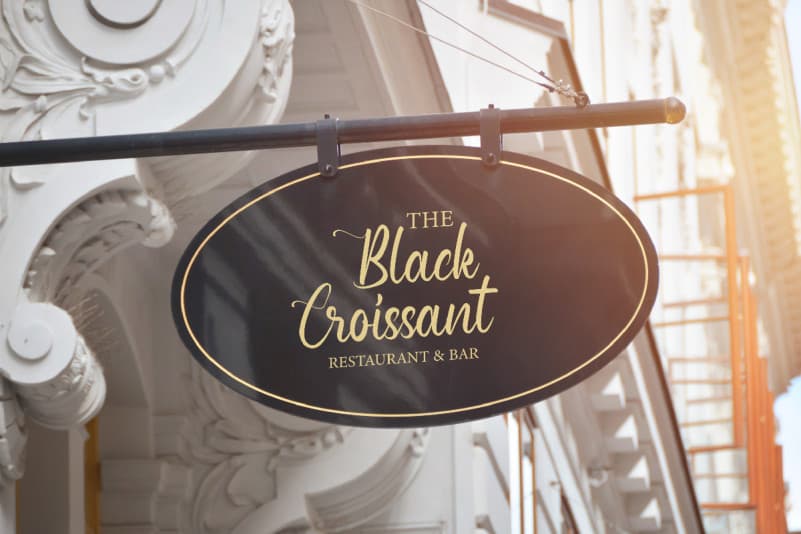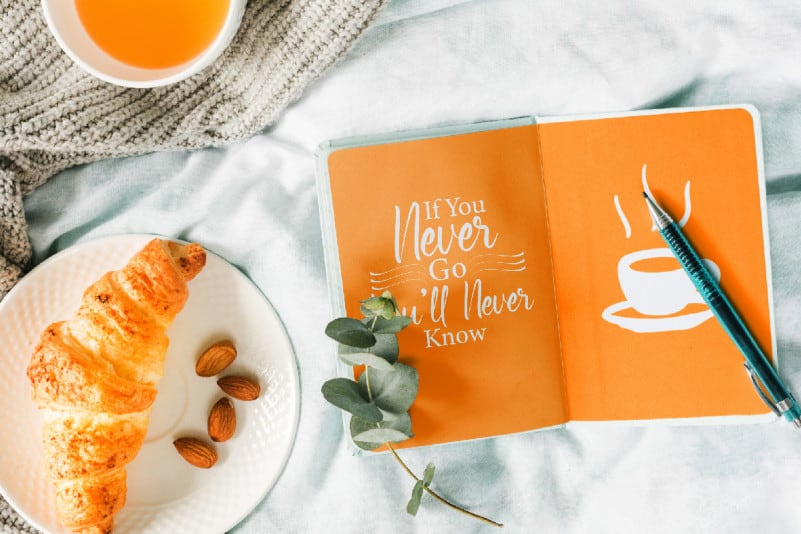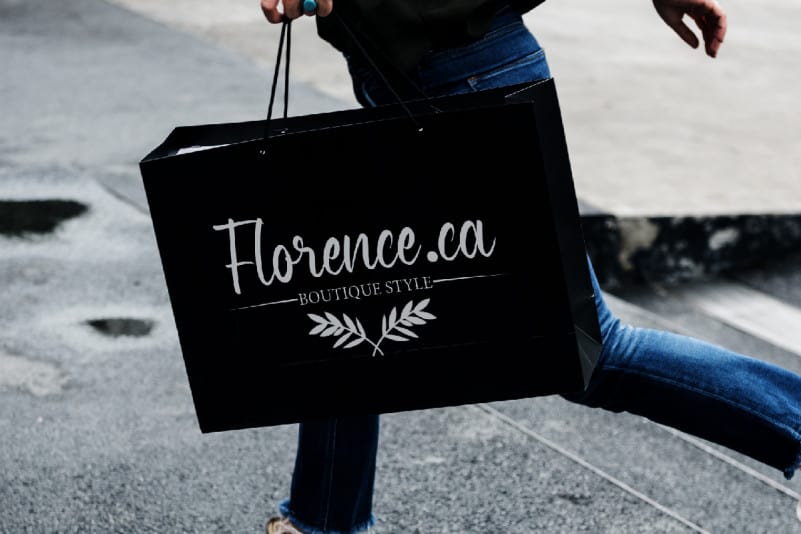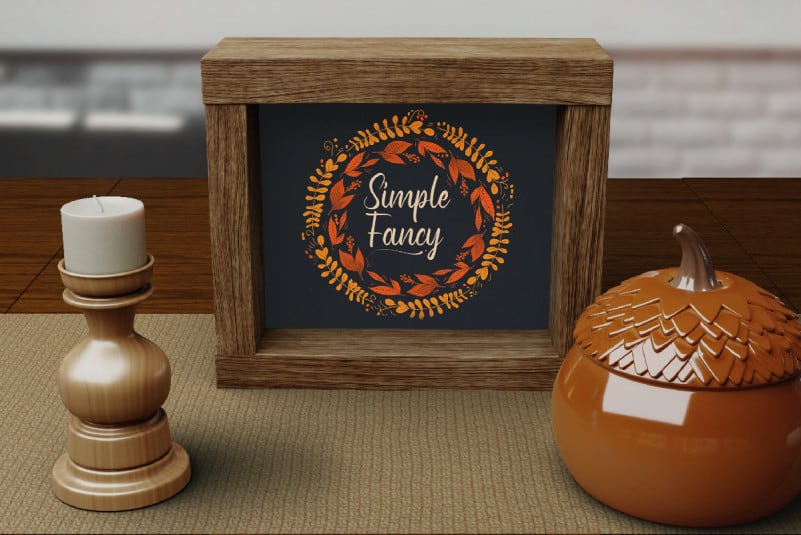
Raunchies Calligraphy Font
Raunchies Calligraphy Font is a beautiful calligraphy handwriting font which is combining modern and classic typography with stunning characters, alternatives and ligatures. This font is crafted carefully in every its single letter so we can make sure it has great looking, inspired by the handwriting of Italian women and ancient manuscripts. Carefully designed to work together in harmony and This one should make your designs instantly professional and jaw-dropping!
Raunchies Calligraphy Font includes full set of Uppercase and Lowercase Basic Characters, Numerals and Punctuation. Also it contains ligatures to make it flowless characters to perfectly make awesome look that add more aesthetic fonts to perfect your extraordinary project. Many industries will suit this font great including wedding, florist, sales marketing, professional, dentist, real estate, music, videography etc